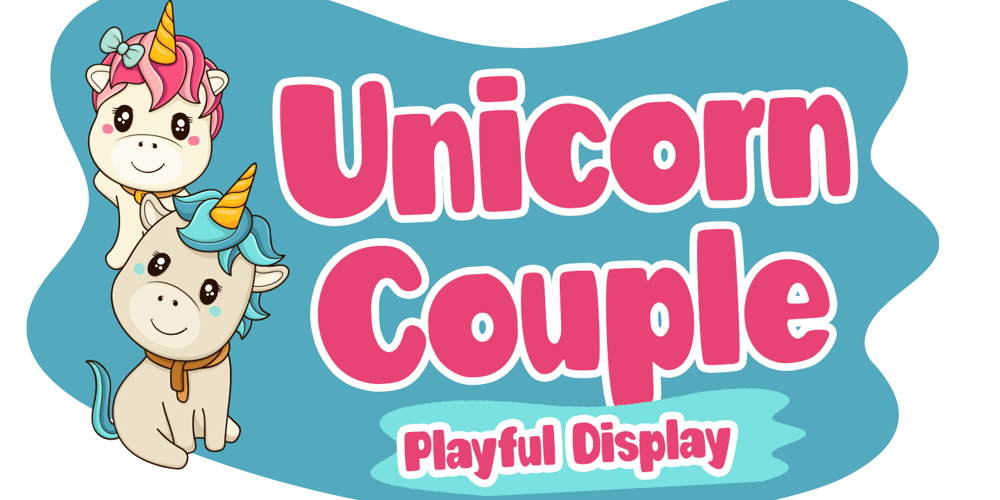
Unicorn Couple Font Family was designed by Stefani Tri Rosa Setiati Christiana and published by Stefani Letter. Unicorn Couple contains 2 styles and family package options. Unicorn Couple is a cute, fun yet chunky letter display font. Its well-rounded and slightly chunky characters make this typeface an extremely versatile one! Its unique shape is very suitable for game designs, animation, product packaging, posters, sports, music and much more! It can elevate the look of almost any of your beautiful creations! This font is PUA encoded which means you can access all of the glyphs.